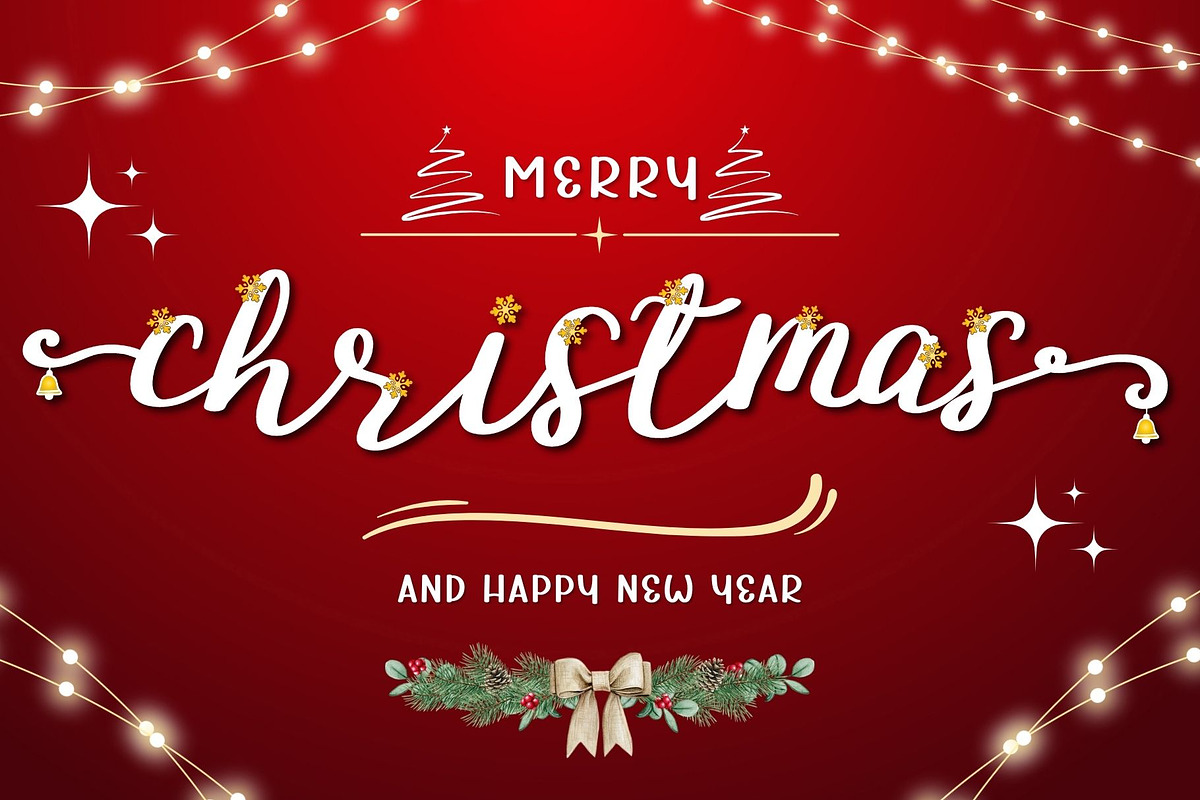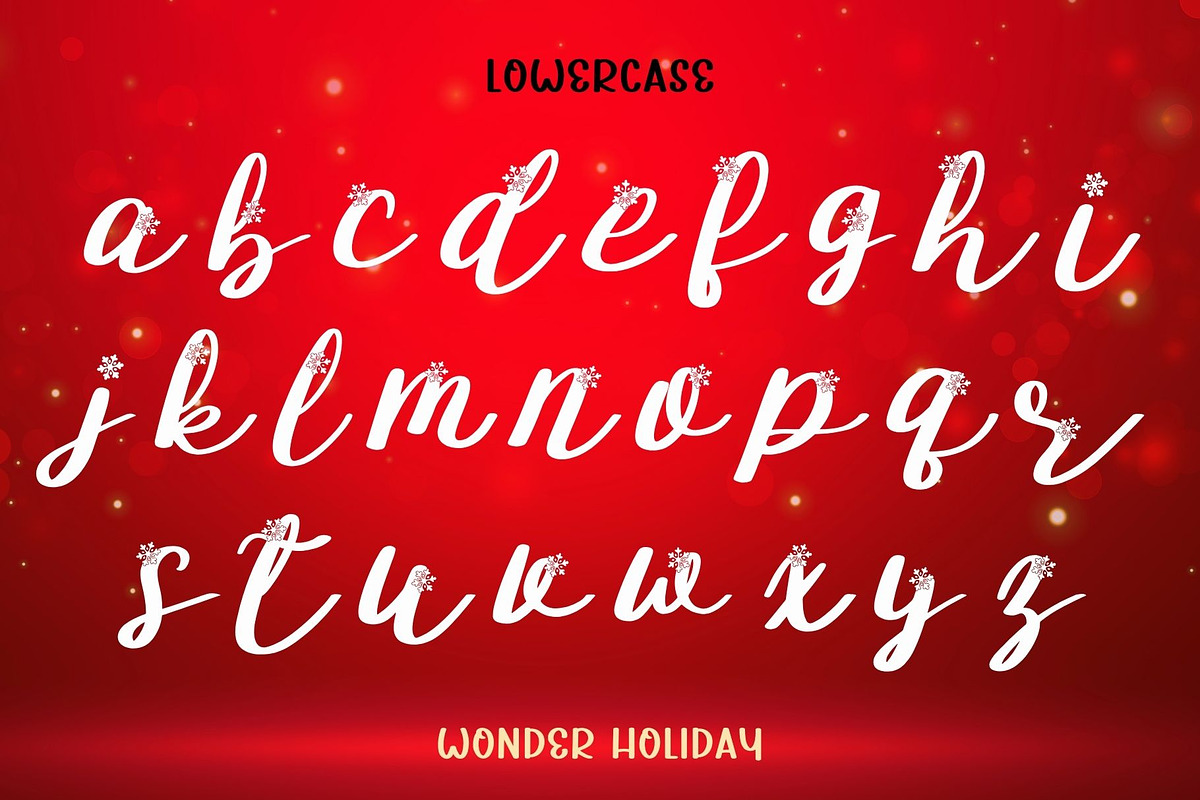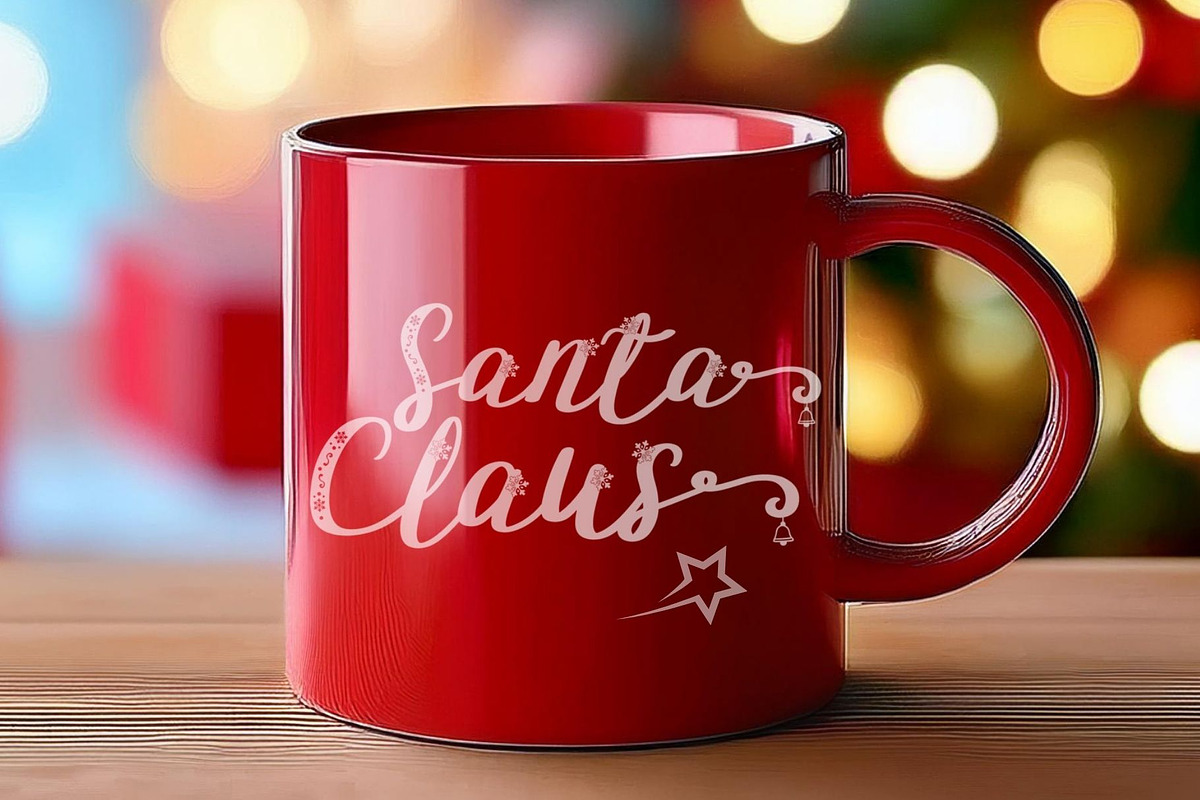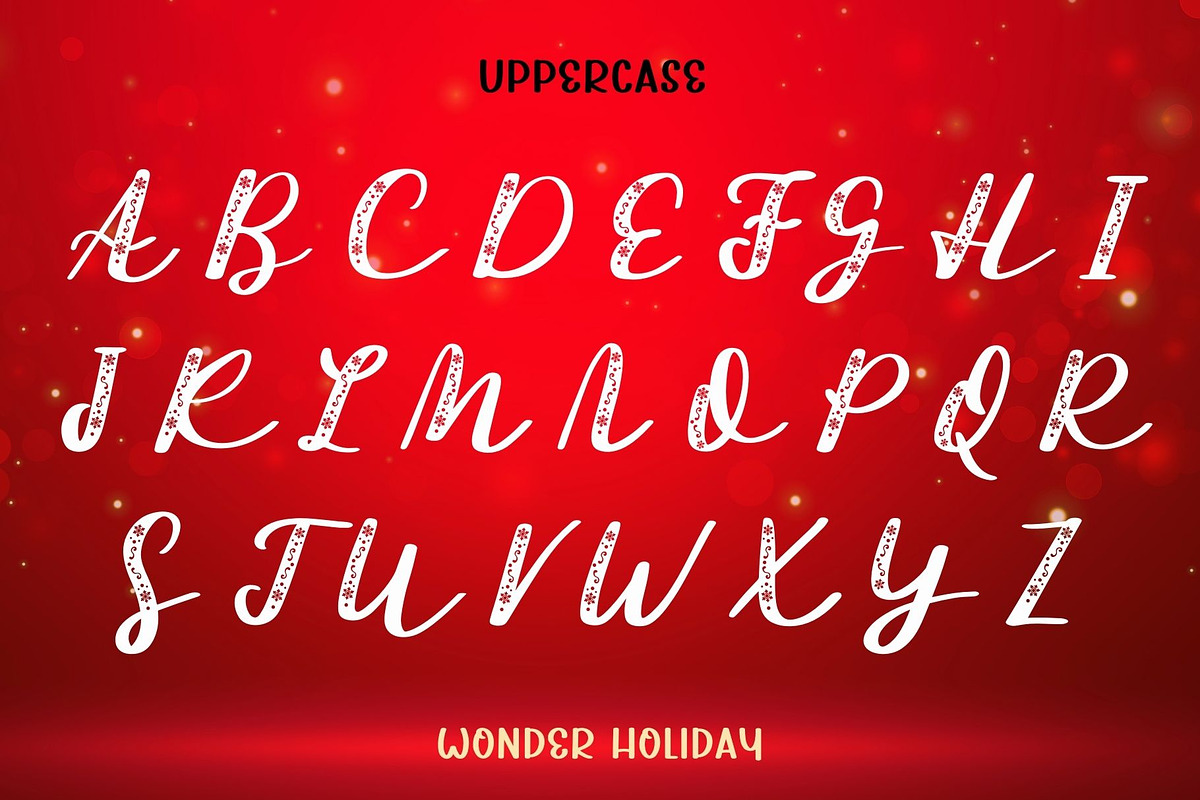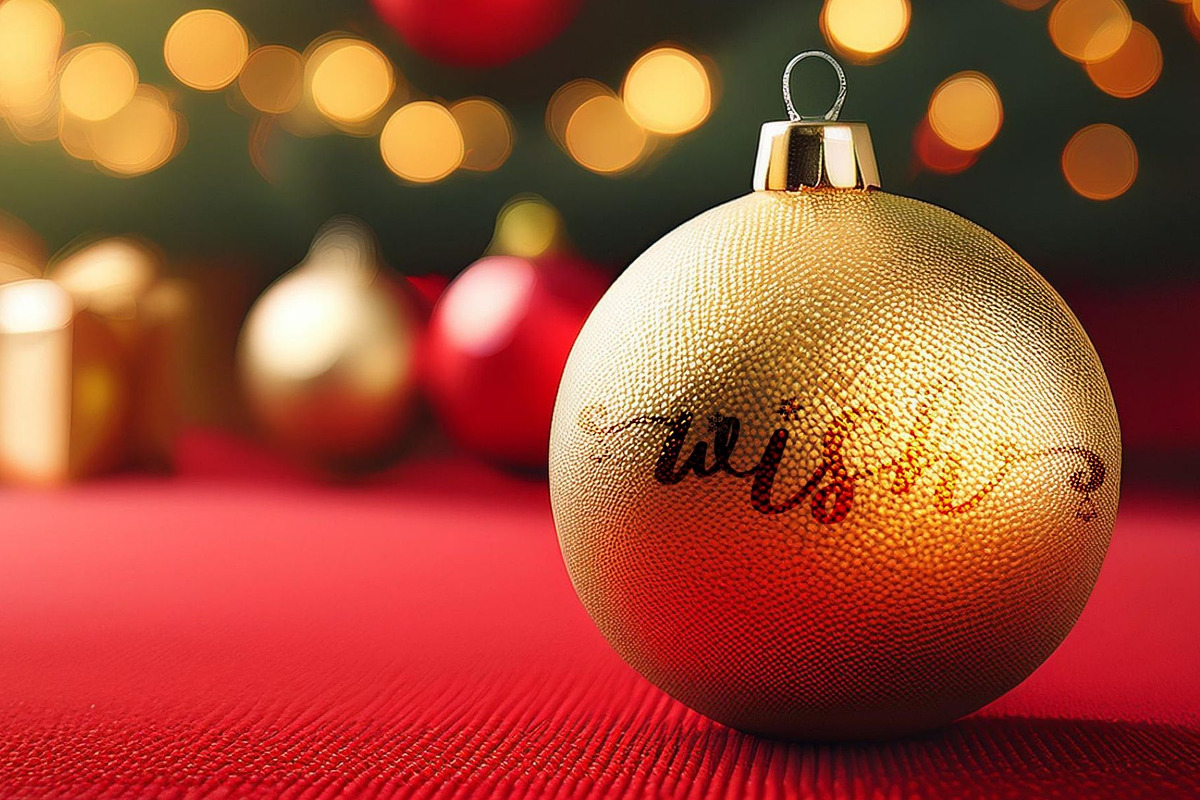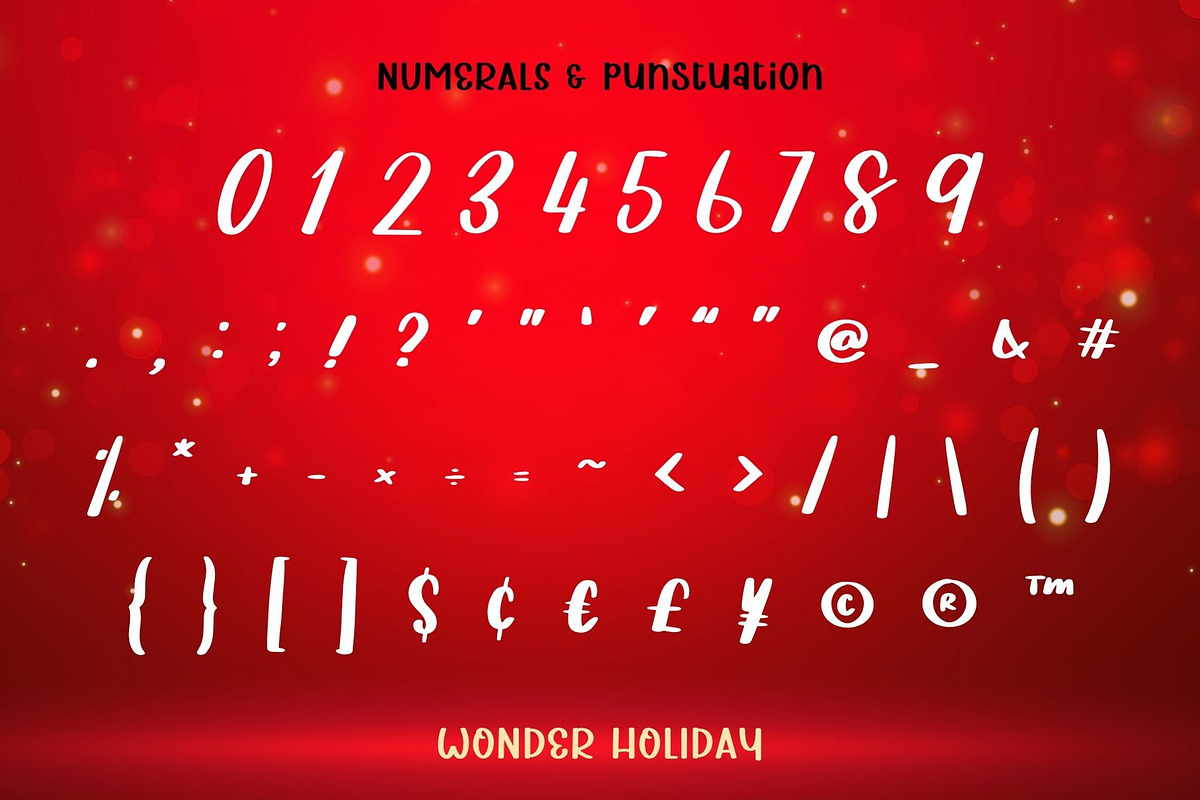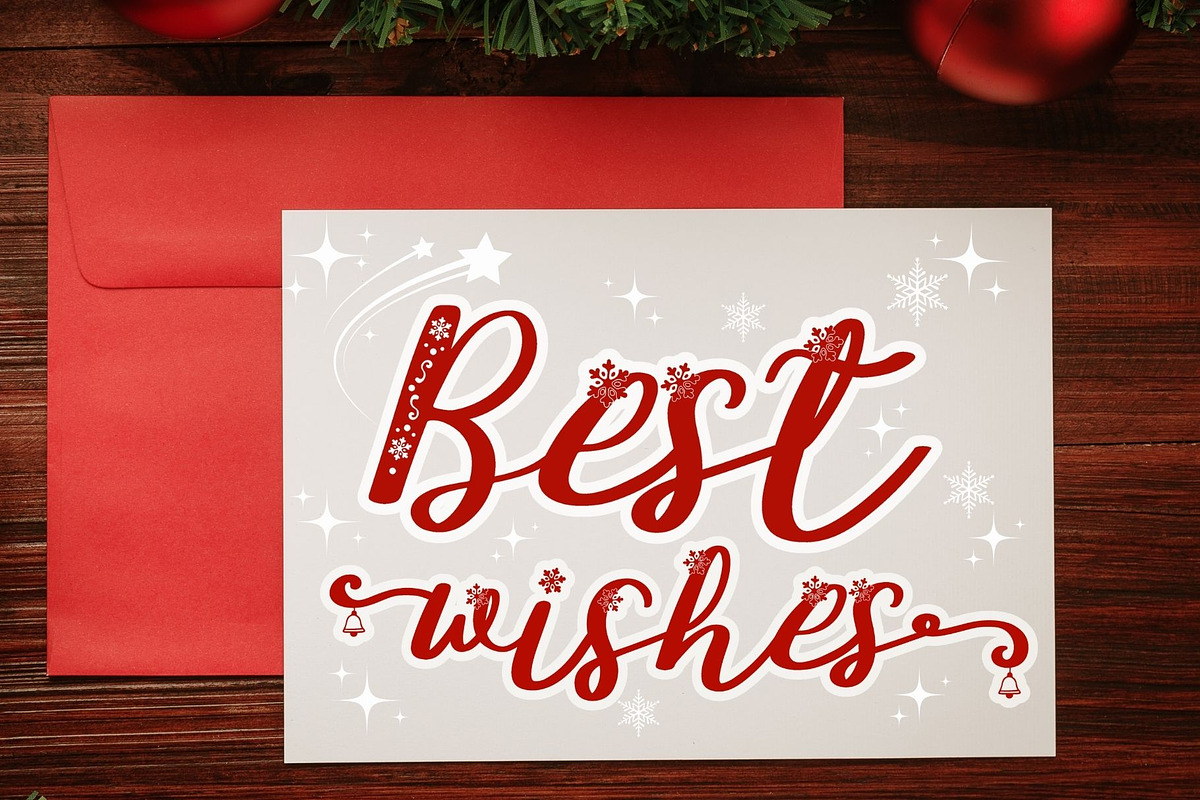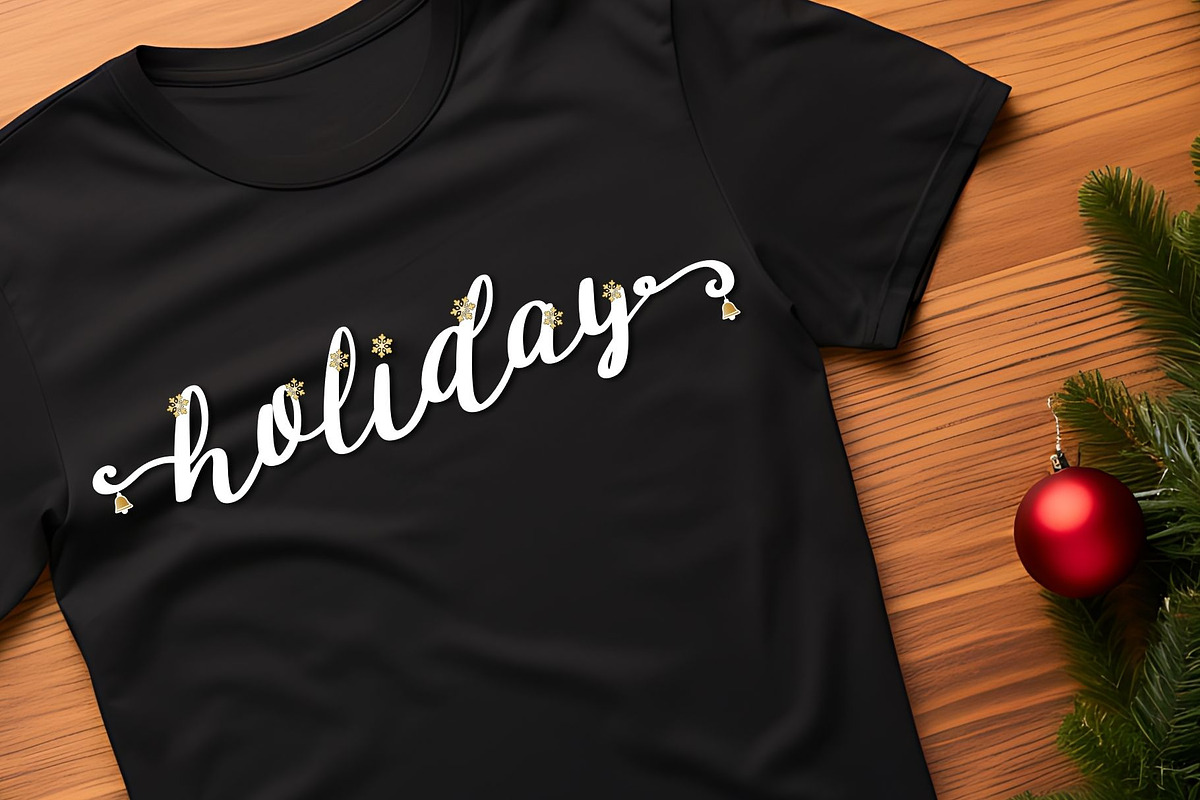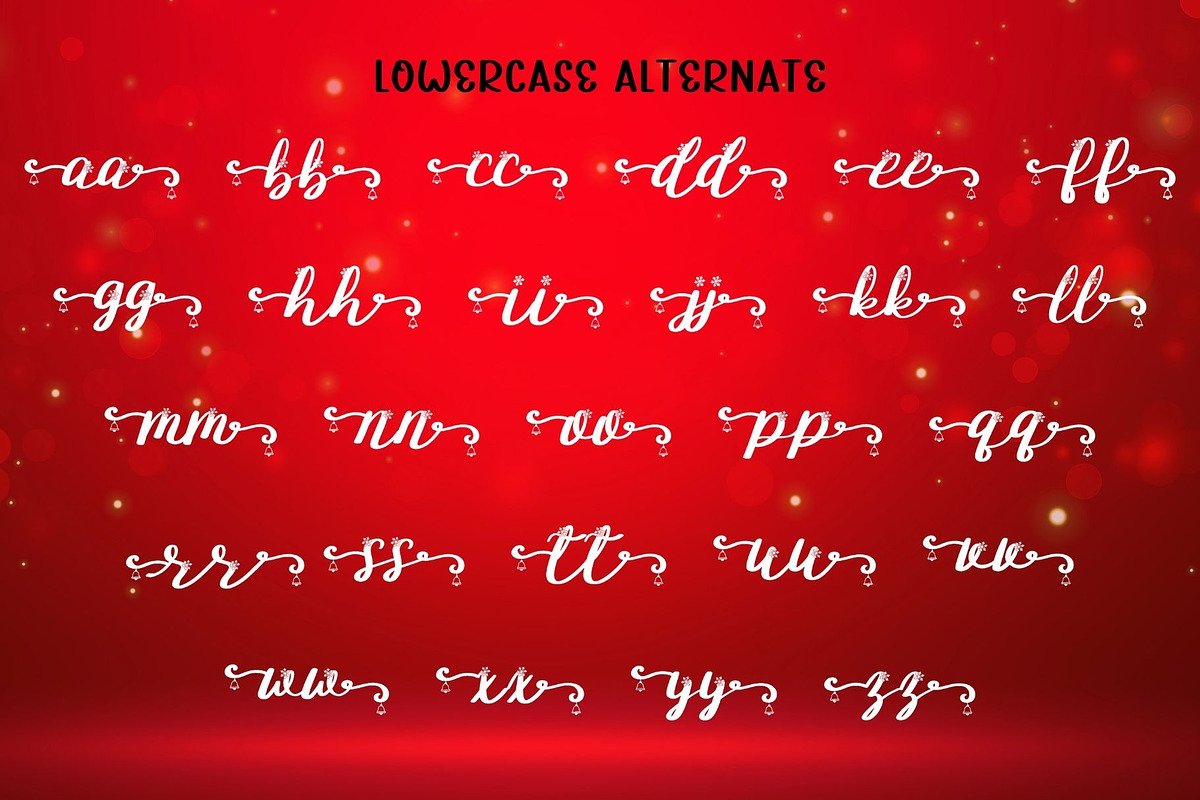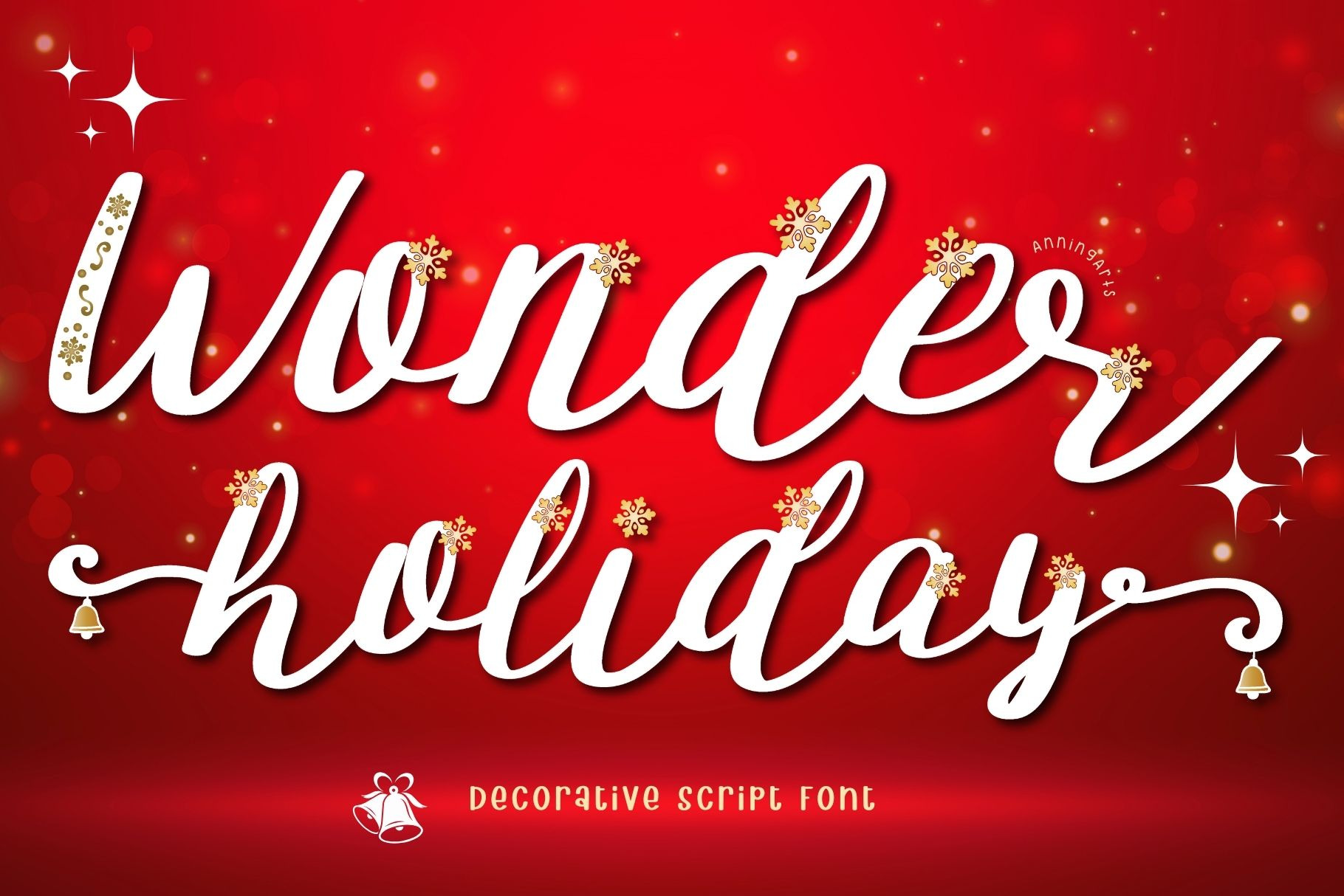
Wonder Holiday - Deco Script Font
Wonder Holiday is a decorative script font. This font is a combination of script font and Christmas elements such as snowflakes and bells in lowercase letters and is decorated with Christmas-themed lines in uppercase letters, making this font set unique and very interesting. It is suitable for designing various craft works such as cards, mugs, and t-shirts, making your work eye-catching and unique.